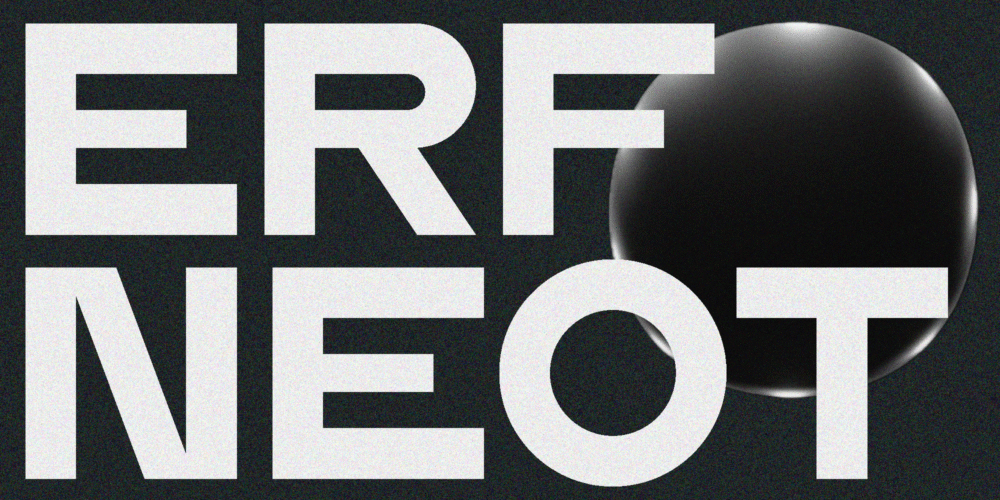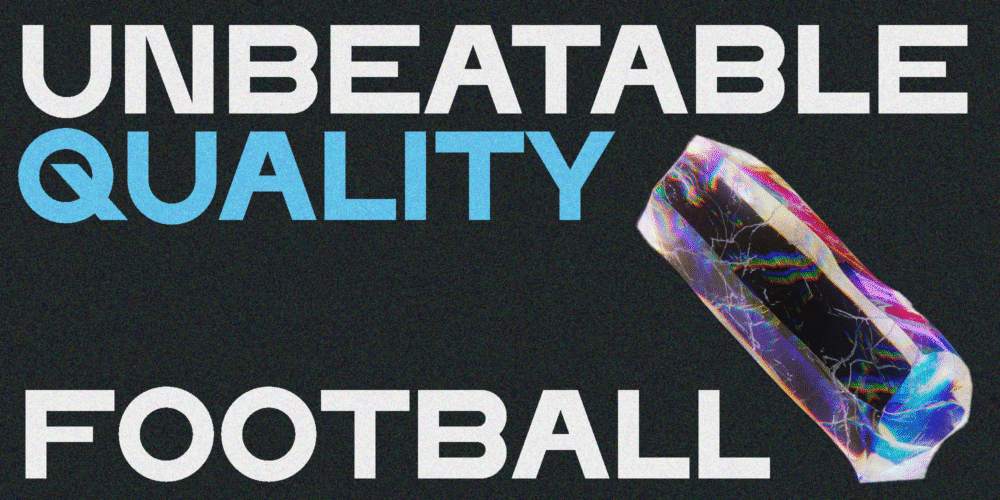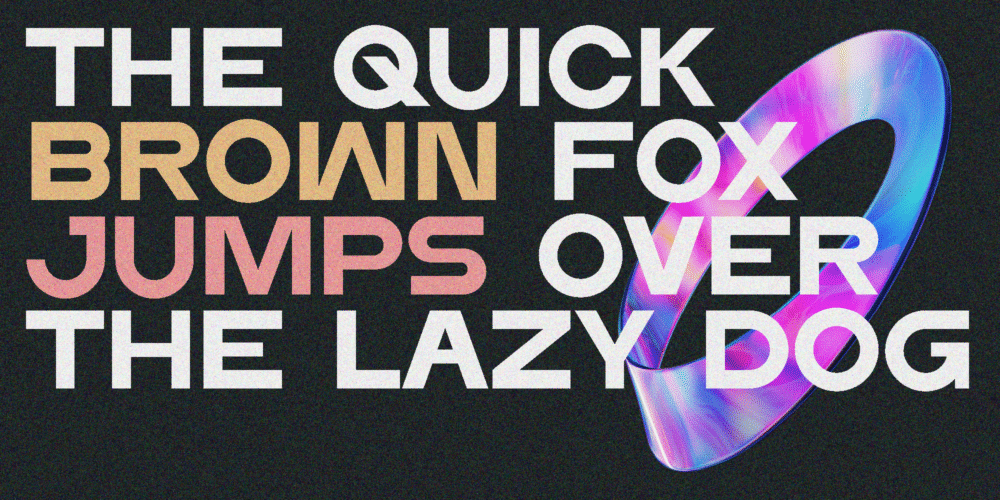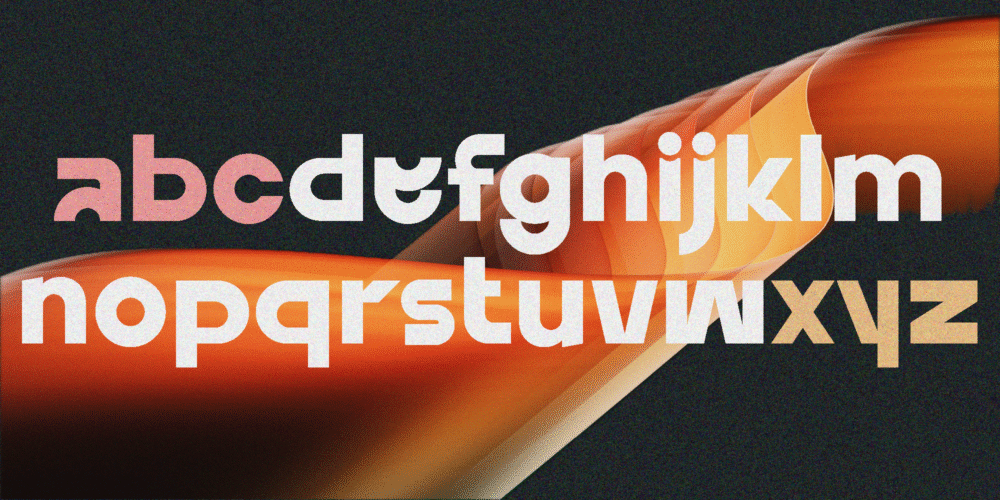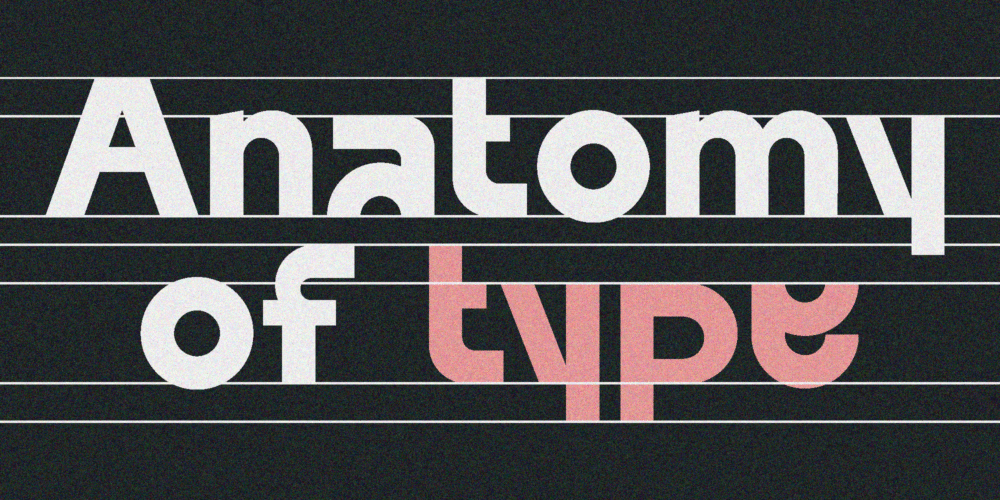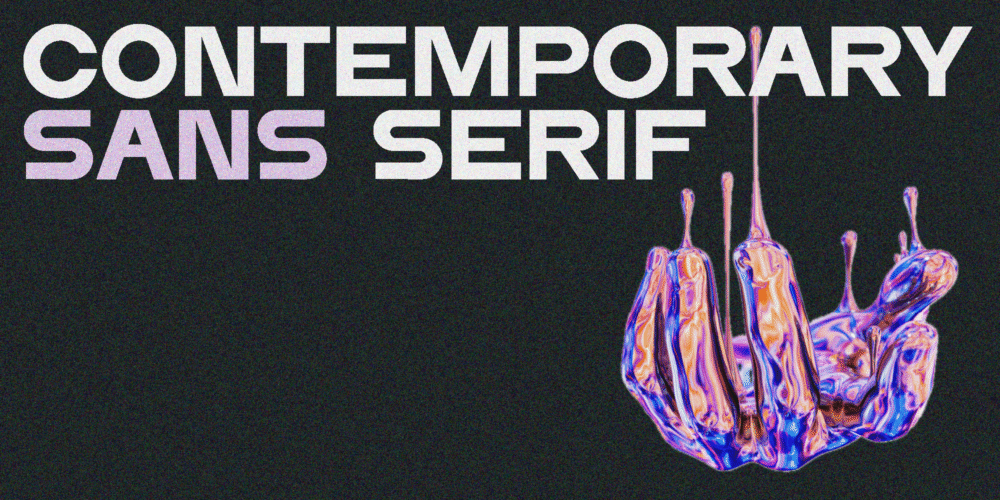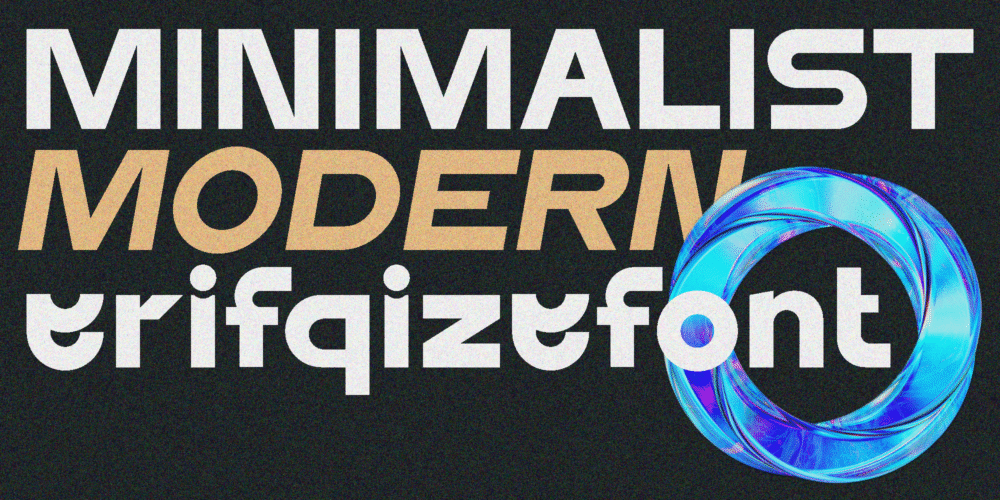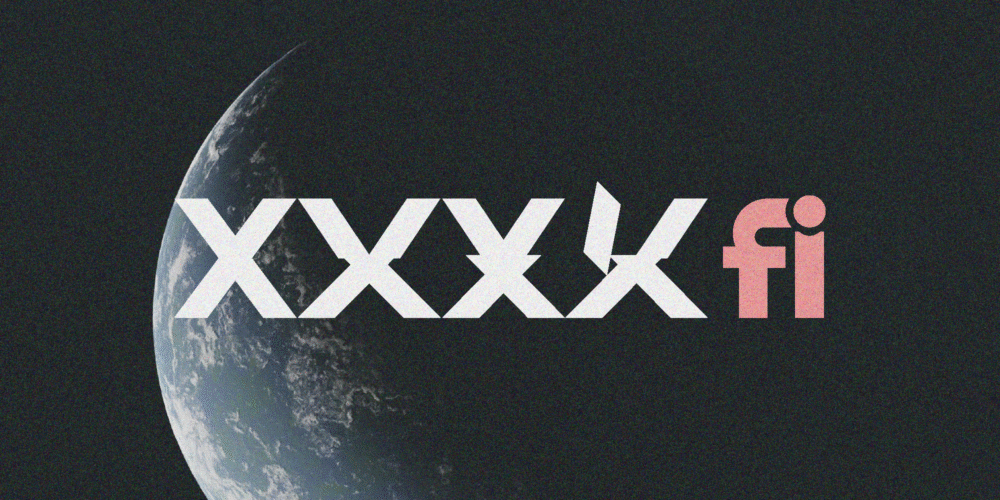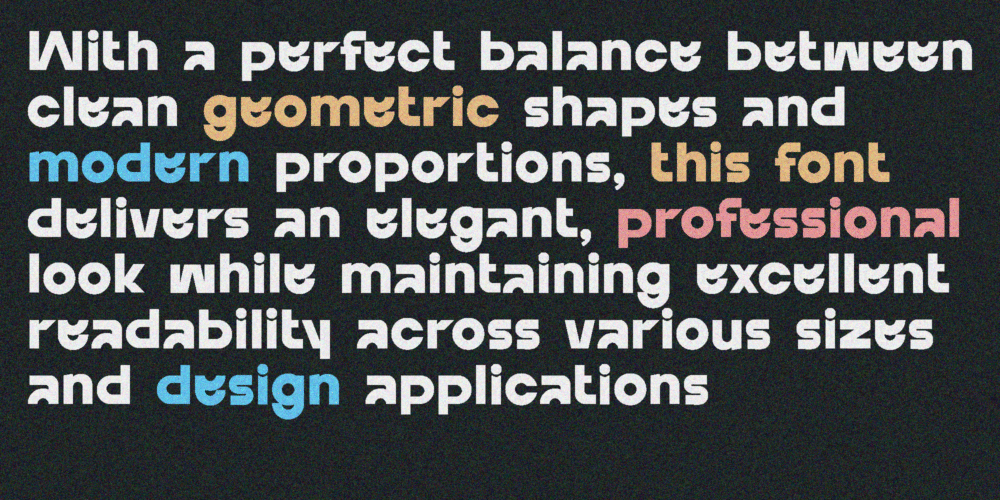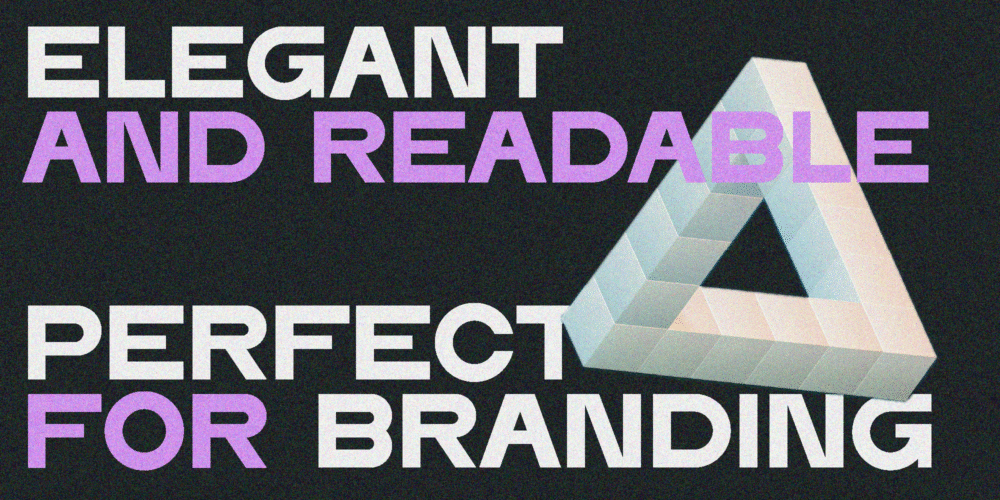
ERF NEOT is a modern geometric sans serif font family that blends bold structure with futuristic minimalism. Designed with clean lines and precise curves, ERF NEOT offers a striking yet versatile aesthetic suitable for a wide range of design needs. With 16 distinct styles, it provides extensive flexibility—ideal for everything from branding, editorial layouts, and UI/UX interfaces to cutting-edge creative projects. Its multilingual support ensures excellent legibility across various languages, making it a reliable choice for global use. Whether you’re aiming for a sleek tech vibe or a professional corporate identity, ERF NEOT delivers clarity, impact, and style.
• Multilingual Support
• Modern Geometric Design
• Clean & Professional Look
• Perfect for Branding, Editorial, Web & Interface Design
ERF Neot Complete 16 Family – Modern Geometric Sans Serif Font
ERF NEOT is a modern geometric sans serif font family that blends bold structure with futuristic minimalism.